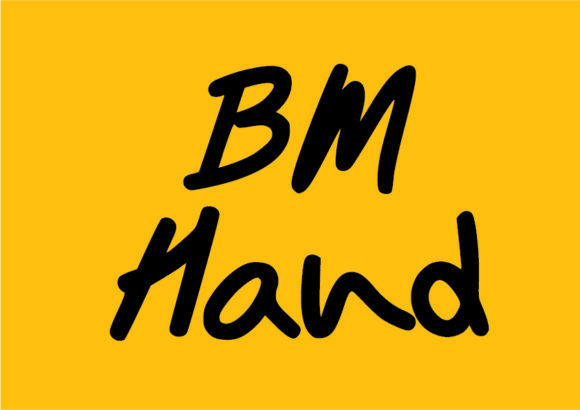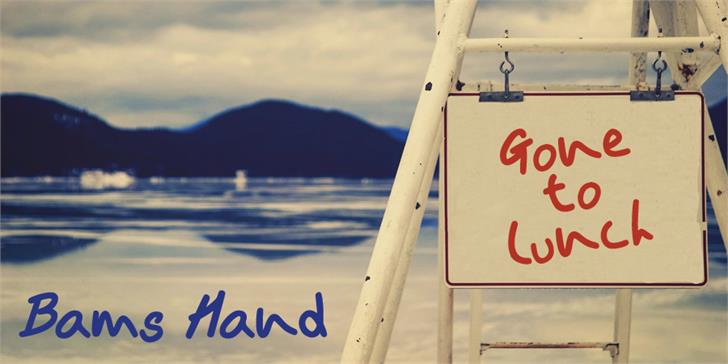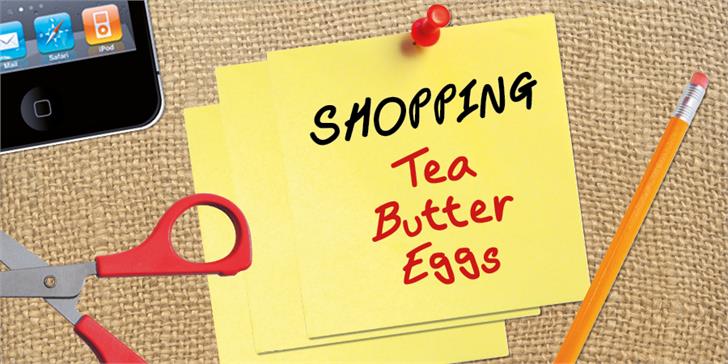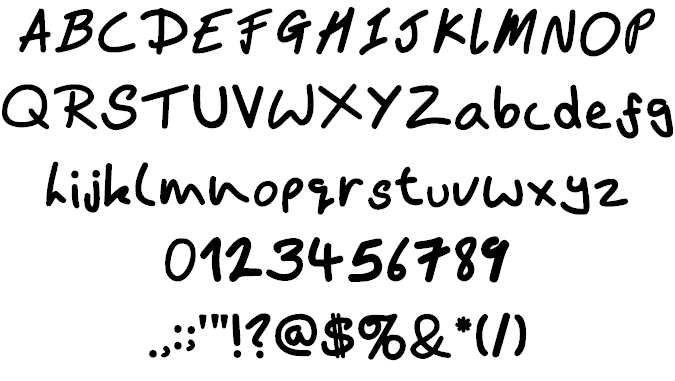
HomeScript FontsBams Hand Font Script Fonts Bams Hand Font FacebookXPinterestWhatsApp Bams Hand Font Poster 2 Bams Hand Font Poster 3 Bams Hand Font Poster 4 About Bams Hand Font Based on my own handwriting this ‘casual’ style comes from quick note taking. DOWNLOAD ON CREATIVE FABRICAThis font is sold and delivered by Creative Fabrica. Font Canyon may earn a commission if you buy through this link. People also explored Sunflower Font Place of Business Font Douglas Font TypeFace Font Charla Lazycat Font Bonithy Rossela Font Charge Font Smoothy Font 348 0 TagsBams Hand Font Previous articleDead End FontNext articleMolleat Font LEAVE A REPLY Cancel reply Comment: Please enter your comment! Name:* Please enter your name here Email:* You have entered an incorrect email address! Please enter your email address here Website: Save my name, email, and website in this browser for the next time I comment. Personal Use Free Anders Personal Use Free Read more about this font Urkelian Personal Use Free Read more about this font Krait Personal Use Free Read more about this font New Amsterdam Personal Use Free Read more about this font BLOG Using Fonts in Digital Marketing: Tips to Strengthen Your Brand Identity In the realm of digital marketing, every visual element plays a crucial role in shaping a brand's identity, and fonts are no exception. The... Best Fonts for T-Shirt Design – Top 2025 Picks Free vs Paid Fonts: Why Investing in Premium Fonts Is Worth It Modern Sans-Serif Fonts That Brands Love in 2025